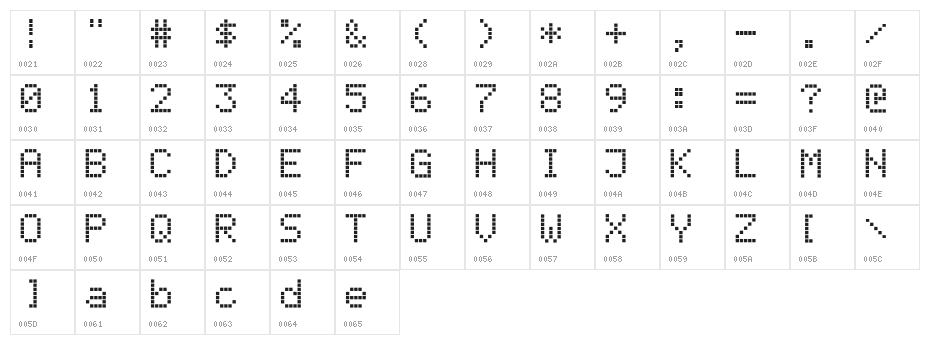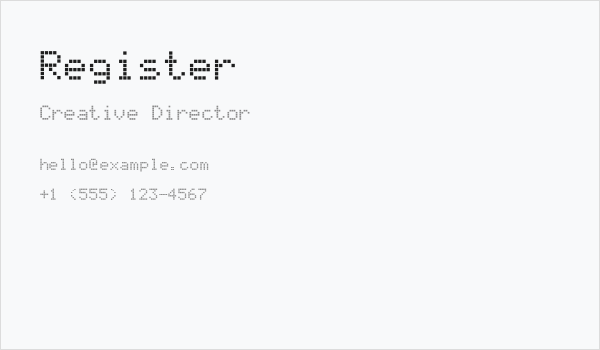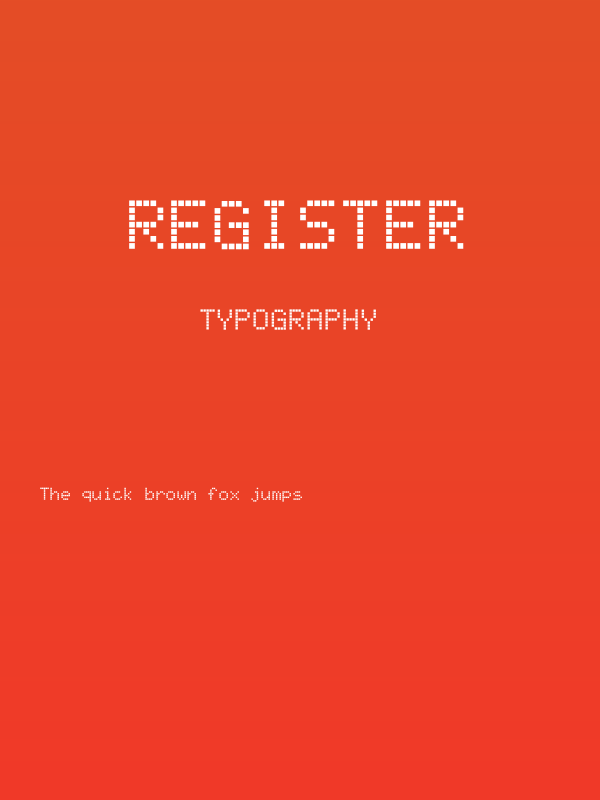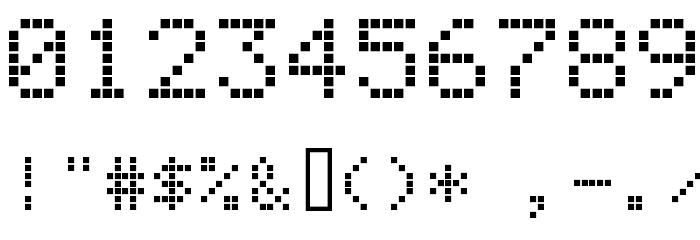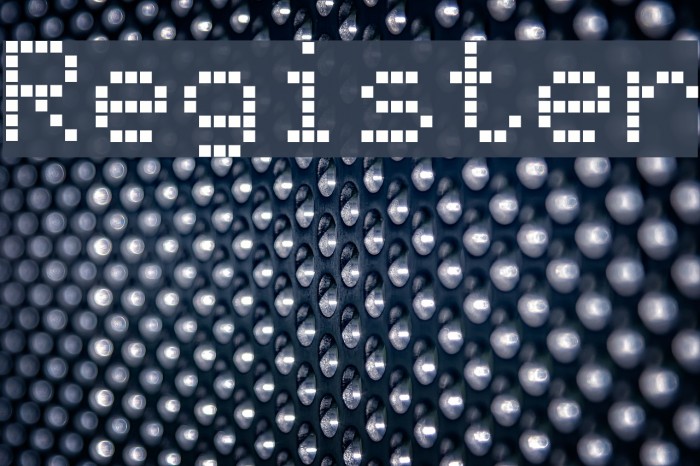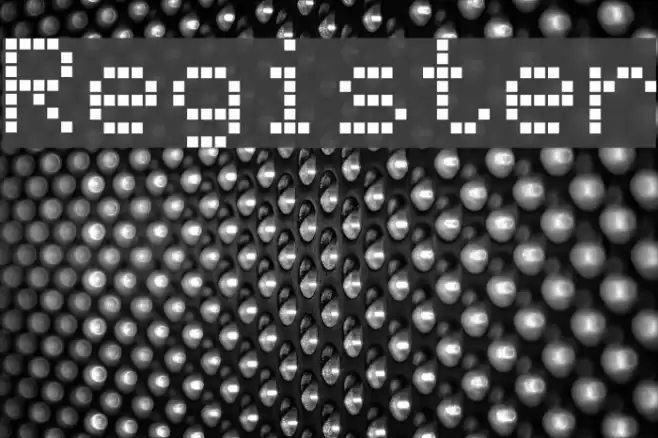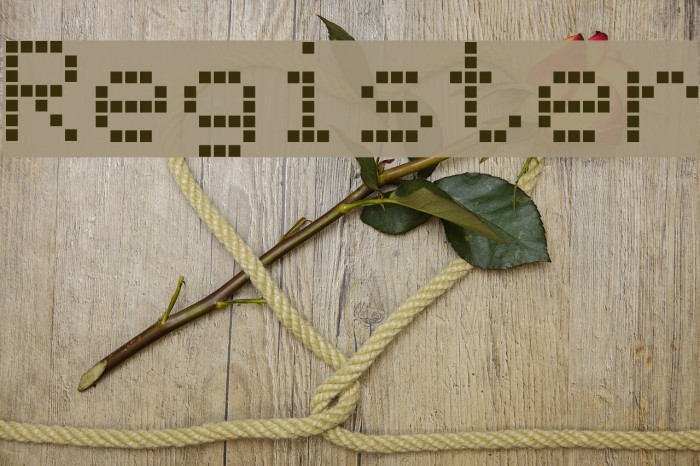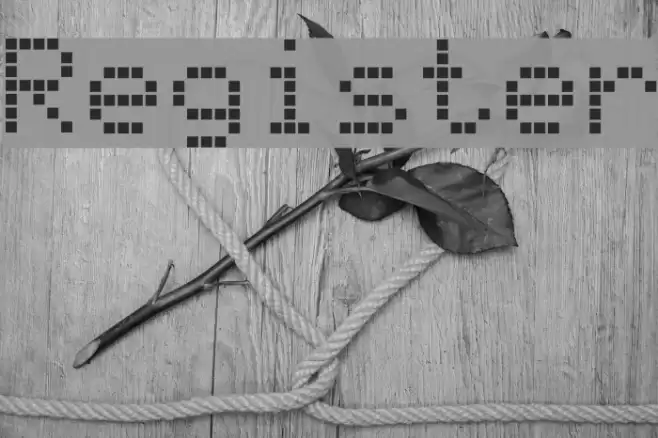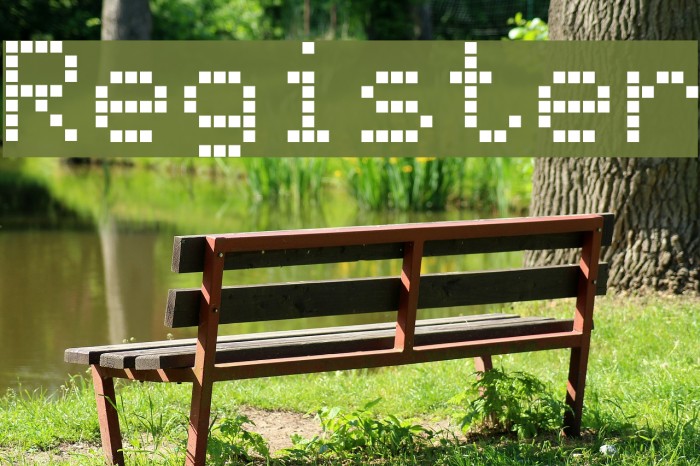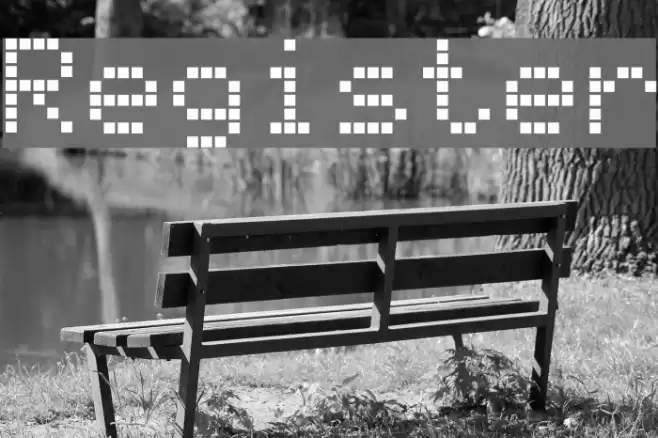
Register Font
| श्रेणियाँ | Pixel |
| समग्र शैली | Retro, Digital |
| उपयोग का मामला | Logos, Posters, Digital Art |
| सुझाए गए प्रोजेक्ट | Ideal for retro video game designs, digital art projects, tech-themed posters, and any creative work that embraces a nostalgic digital style. |